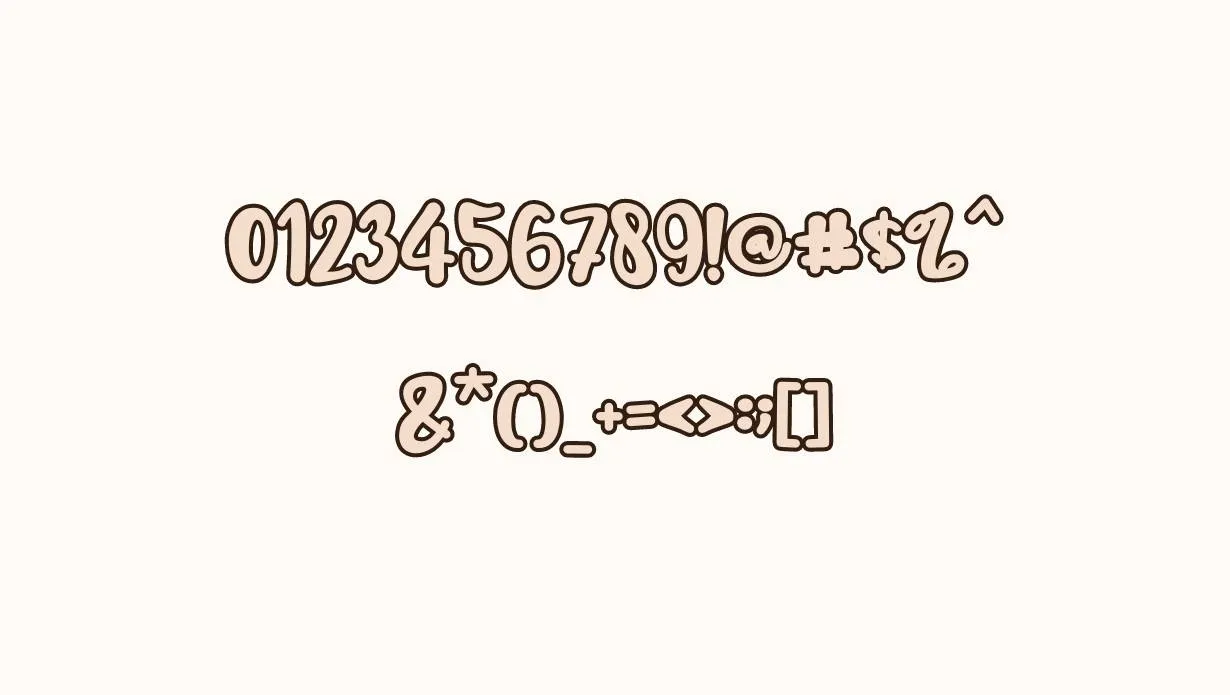
Baby Chipmunk Font is an elegant and unique typeface in the fancy font family. This playful typeface was developed by Stefani Tri Rosa and it was publicized by Stefani Letter Foundry. She was very much inspired by squirrels is the reason she named it Baby Chipmunk.
The modern and decorated characters of this typeface are identical to the so weird place font.